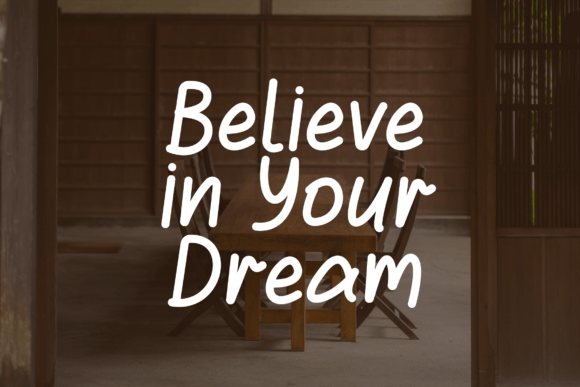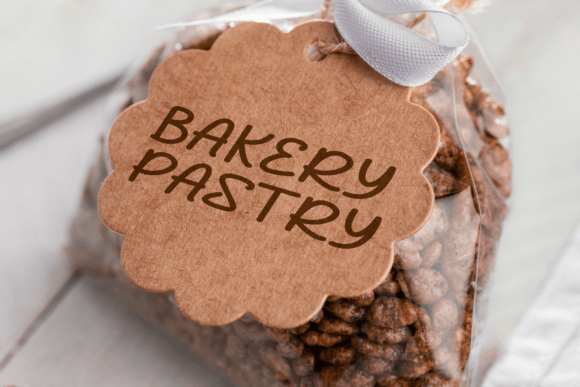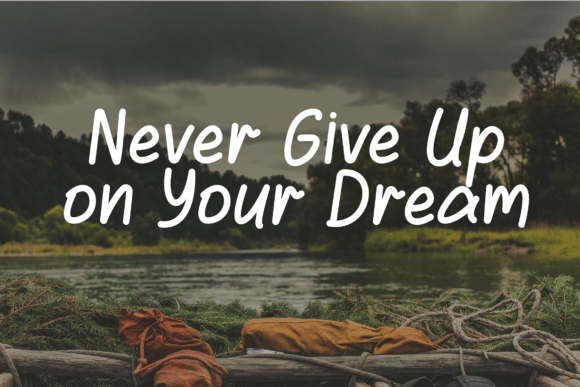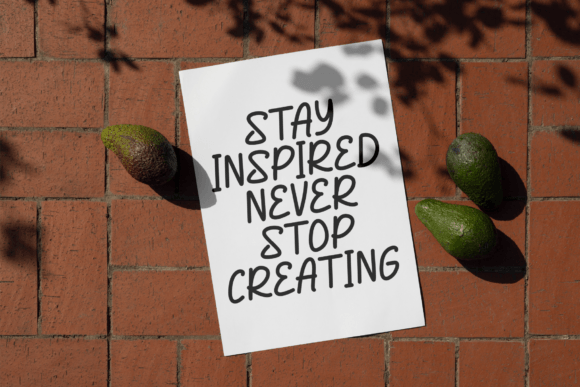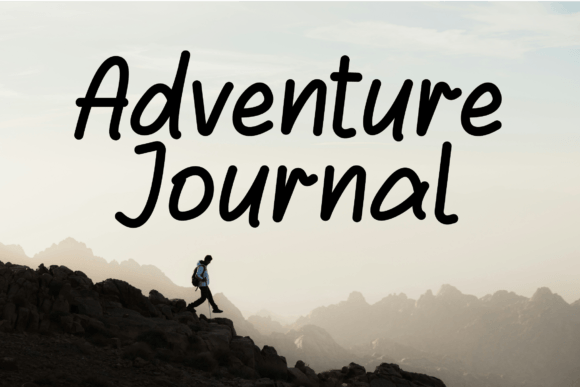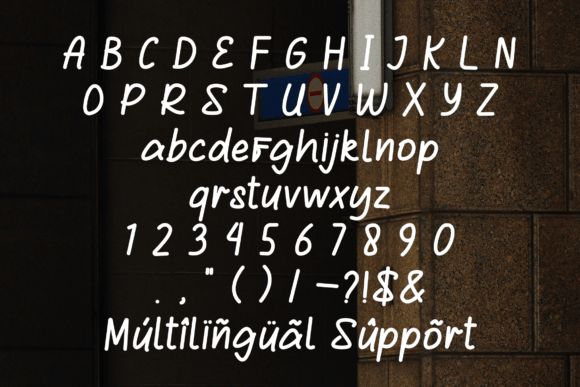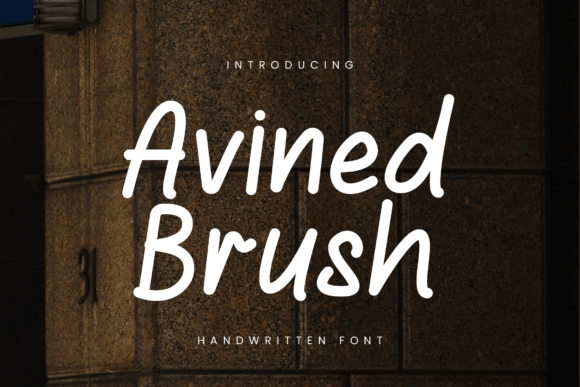
Unleashing Your Creative Vision with the Avined Brush Font
Have you ever stared at a blank canvas, trying to bring your creative ideas to life? The blank page can be daunting, but what if you had the perfect tool to spark your imagination? For designers, finding the right font can be the key to unlocking a project’s true potential. That’s where the Avined Brush Font comes in – a handcrafted, handwritten font that exudes personality and charm.
Designed to add a touch of authenticity and creativity to any project, the Avined Brush Font is perfect for branding, social media, logos, and more. Its bold strokes and natural flow give it a unique, artistic flair that stands out from the crowd. Whether you’re a seasoned designer or just starting out, the Avined Brush Font is a valuable addition to your toolkit, helping you to create designs that truly leave a lasting impression.
Key Features of Avined Brush Font
- Font Style: Brush Script Font
- Unique Characteristics: Hand-drawn, organic feel with subtle brushstrokes and texture, ideal for creative and artistic projects
- Font Pairing: Suitable for pairing with clean, modern sans-serif fonts for a balanced and harmonious design
Review of Avined Brush Font
Overall, I think Avined Brush Font has a lot to offer, but it also has some areas for improvement. ✨
- Unique and Creative Style: Avined Brush Font has a distinct, hand-drawn look that sets it apart from more generic fonts.
- Good for Display Text: The font’s bold, expressive lines make it well-suited for headlines, titles, and other display text applications.
- Highly Customizable: Avined Brush Font offers a wide range of weights, styles, and glyphs, making it easy to tailor the font to your specific design needs.
- Difficult to Read at Small Sizes: Avined Brush Font’s unique style can make it difficult to read at small font sizes or in situations where clarity is crucial.
- May Not Be Suitable for Body Text: While the font is great for display text, it may not be the best choice for body text due to its limited legibility.
- Lack of Consistency in Some Glyphs: Some of the font’s glyphs may not be perfectly consistent in terms of design and spacing, which can be distracting in certain contexts.
Overall, Avined Brush Font is a solid choice for designers looking for a unique and creative font for display text applications. While it may have some limitations, its strengths and customization options make it a valuable addition to any design toolkit.
Alternatives to Avined Brush Font
Great Vibes is a beautiful, handwritten font that is perfect for creating a warm and inviting atmosphere. It is ideal for use in branding, packaging, and advertising materials where a touch of elegance and sophistication is required. Great Vibes has a more refined and polished look compared to Avined Brush Font, making it suitable for high-end designs.
Carolyna Pro is a modern, brush script font that is perfect for creating a unique and eye-catching design. It is ideal for use in fashion, beauty, and lifestyle branding, as well as in advertising and promotional materials. Carolyna Pro has a more contemporary look compared to Avined Brush Font, making it suitable for trendy and modern designs.